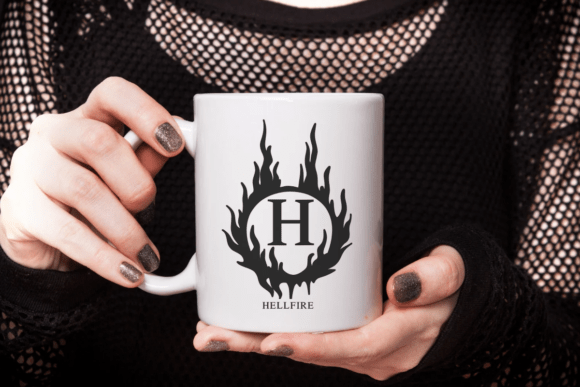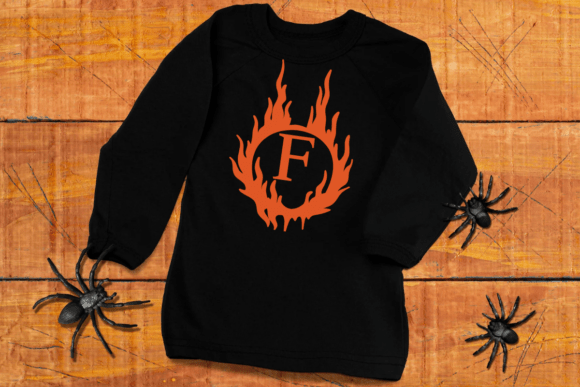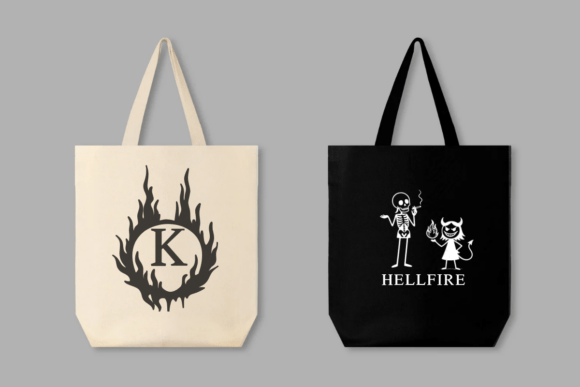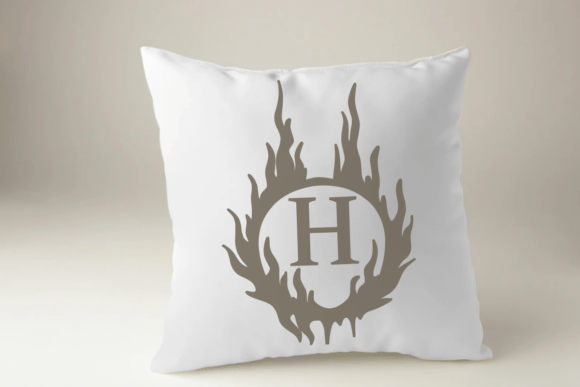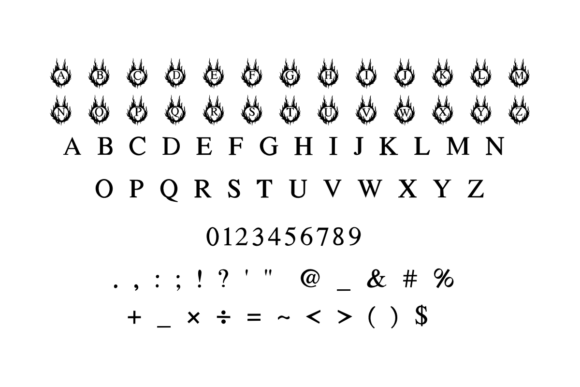
Unleash the Gothic Charm of Halloween Hellfire Font: Elevate Your Designs with Elegance and Style
As the spookiest time of the year approaches, designers and crafters are on the lookout for creative ways to infuse their projects with a touch of Halloween magic. If you’re seeking a font that embodies the essence of the season, look no further than the captivating Halloween Hellfire Font. This stunningly decorative typeface is designed to breathe life into everyday tasks, adding a dash of elegance and style to your creations.
The Versatility of Halloween Hellfire Font
One of the standout features of Halloween Hellfire Font is its adaptability. Whether you’re journaling your thoughts, crafting personalized greeting cards, or scribbling down key brainstorms, this distinctive font is sure to make a statement. Its unique blend of Gothic and whimsical elements makes it perfect for a wide range of design applications.
Journaling and Stationery
For journalers and stationery enthusiasts, Halloween Hellfire Font offers a fresh and exciting way to add some personality to your pages. Imagine pairing this font with watercolor illustrations or doodles to create a one-of-a-kind journal spread. The font’s elegant curves and lines also make it an excellent choice for creating custom stationery, such as letterheads, invitations, and thank-you cards.
Greeting Cards and Crafts
Take your greeting card game to the next level with Halloween Hellfire Font. This font is perfect for creating spooky yet stylish Halloween cards, as well as Christmas and birthday cards that require a touch of Gothic charm. You can also use it to create custom craft projects, such as DIY decorations, gift tags, and iron-on designs for t-shirts.
Digital Designs and Social Media
In the digital realm, Halloween Hellfire Font shines just as brightly. Use it to create eye-catching social media posts, blog headers, and graphics that are sure to capture attention. The font’s distinctive style also makes it an excellent choice for branding and packaging design, helping your products stand out in a crowded market.
Design Possibilities with Halloween Hellfire Font
The design possibilities with Halloween Hellfire Font are endless. Here are a few ideas to get you started:
- Banners and Signs: Create attention-grabbing banners and signs for Halloween parties, events, or promotions.
- Drinkware and Mugs: Add a touch of elegance to your drinkware and mugs with custom designs featuring Halloween Hellfire Font.
- T-Shirt Designs: Create unique and stylish t-shirt designs that are perfect for Halloween or any occasion.
- Stationery and Planners: Use Halloween Hellfire Font to create custom stationery, planners, and journals that reflect your personal style.
Tips for Working with Halloween Hellfire Font
To get the most out of Halloween Hellfire Font, here are a few tips to keep in mind:
- Experiment with Colors: Pair Halloween Hellfire Font with a range of colors to create unique and eye-catching designs.
- Mix and Match Fonts: Combine Halloween Hellfire Font with other fonts to create interesting and dynamic typography.
- Play with Texture: Add texture to your designs by incorporating patterns, illustrations, or graphics alongside Halloween Hellfire Font.
In conclusion, Halloween Hellfire Font is a versatile and captivating typeface that’s sure to elevate your designs with elegance and style. Whether you’re a designer, crafter, or DIY enthusiast, this font offers endless possibilities for creative expression. So why wait? Unleash the Gothic charm of Halloween Hellfire Font and bring a touch of magic to your projects.